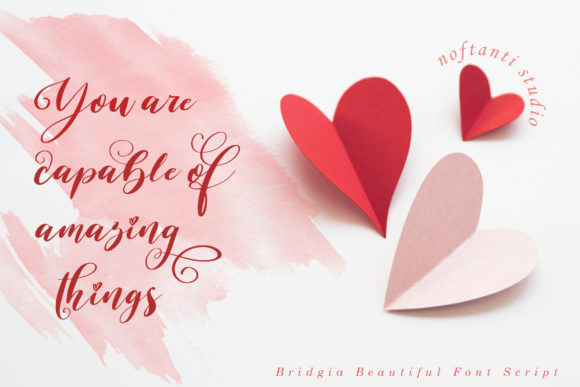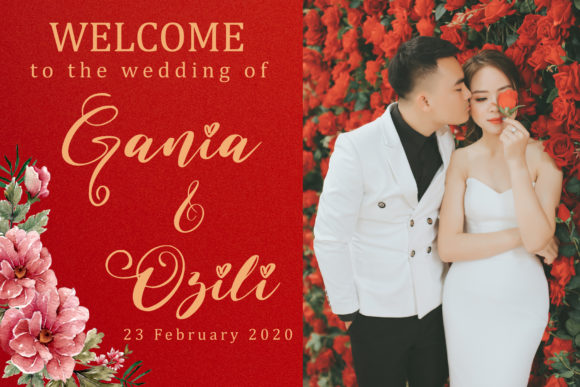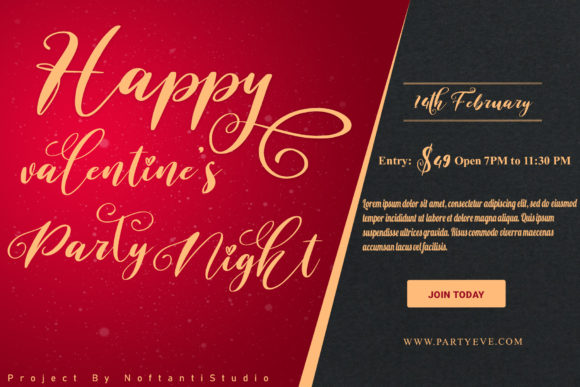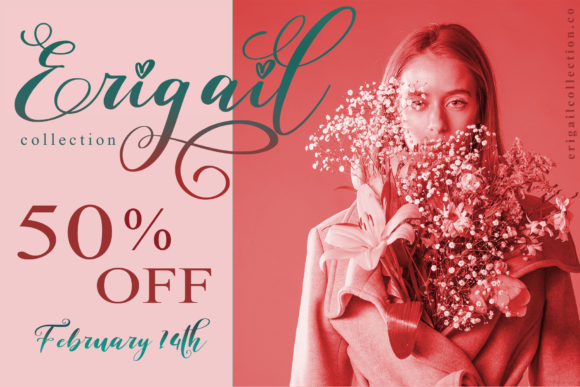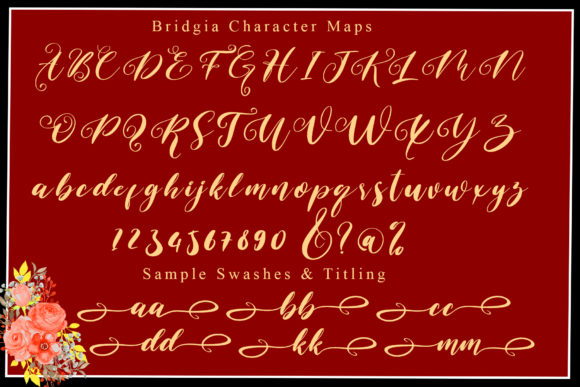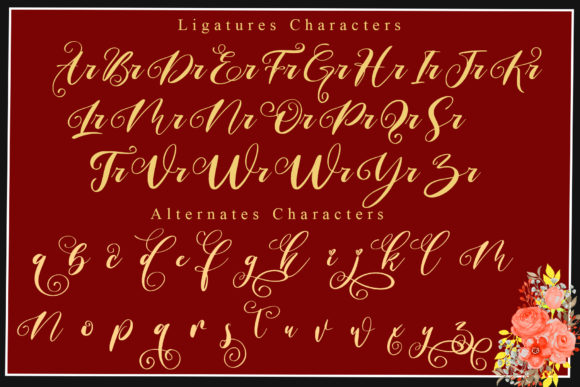
Bridgia Font: Elevate Your Designs with Elegance and Flair
In the world of typography, a font can make or break a design. It’s the perfect blend of style, elegance, and personality that can elevate a simple idea into a masterpiece. If you’re a designer, crafter, or simply a creative enthusiast, you’re likely always on the lookout for that perfect font to bring your visions to life. That’s where Bridgia Font comes in – a delicate, elegant, and flowing handwritten font that’s sure to capture your heart.
The Beauty of Bridgia Font
Bridgia Font is a stunning example of modern typography, boasting beautiful and well-balanced characters that exude elegance and sophistication. Its delicate strokes and flowing lines make it perfect for a wide range of designs, from wedding invitations and branding materials to packaging and digital media. Whether you’re looking to create a romantic and whimsical feel or a more modern and sleek look, Bridgia Font is the perfect choice.
PUA Encoding: Unlocking Endless Creative Possibilities
One of the standout features of Bridgia Font is its PUA (Private Use Area) encoding. This means that you can access all of the glyphs and swashes with ease, giving you unparalleled creative control over your designs. With PUA encoding, you can effortlessly swap out characters, add flourishes, and experiment with different combinations to create a truly unique look. This level of flexibility makes Bridgia Font an ideal choice for designers and crafters who want to push the boundaries of their creativity.
Bridgia Font is incredibly versatile, making it suitable for a wide range of design applications. Here are just a few ideas to get you started:
- Wedding Invitations: Create beautiful, bespoke wedding invitations that set the tone for a romantic and unforgettable celebration.
- Branding Materials: Elevate your brand with elegant and sophisticated business cards, letterheads, and packaging.
- Digital Media: Use Bridgia Font to create stunning social media graphics, blog headers, and email newsletters that capture your audience’s attention.
- Crafting and Scrapbooking: Add a touch of elegance to your crafting and scrapbooking projects with beautiful journaling and titles.
Why Choose Bridgia Font?
With so many fonts available, why choose Bridgia Font? Here are just a few reasons why designers and crafters love this beautiful font:
- Unique and Elegant: Bridgia Font offers a unique and elegant style that’s sure to set your designs apart.
- Highly Versatile: This font is suitable for a wide range of design applications, from digital media to print materials.
- Easy to Use: With PUA encoding, you can easily access all of the glyphs and swashes, making it simple to get creative.
- Exceptional Quality: Bridgia Font is crafted with exceptional quality in mind, ensuring that your designs look professional and polished.
Bridgia Font is a stunning handwritten font that’s sure to elevate your designs with elegance and flair. Its delicate strokes, flowing lines, and PUA encoding make it the perfect choice for designers and crafters who want to create beautiful and unique designs. Whether you’re working on a wedding invitation, branding materials, or digital media, Bridgia Font is the perfect addition to your creative toolkit. So why wait? Download Bridgia Font today and discover a world of creative possibilities!